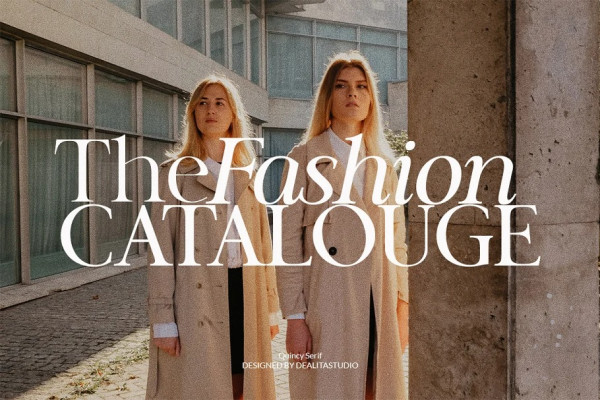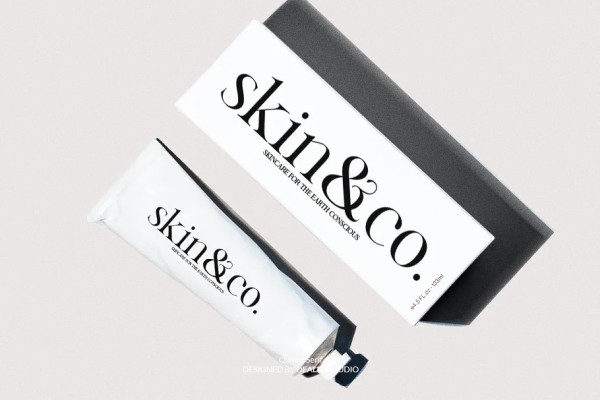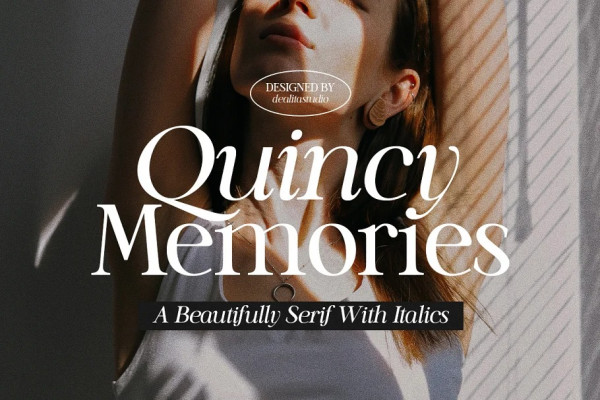
Quincy Font
Quincy Font is a Beautiful serif typeface With Italics. Ideally to be applied to other various formal forms such as invitations, labels, logos, magazines, books, greeting/wedding cards, packaging, fashion, makeup, stationery, novels, labels or any advertising purpose.